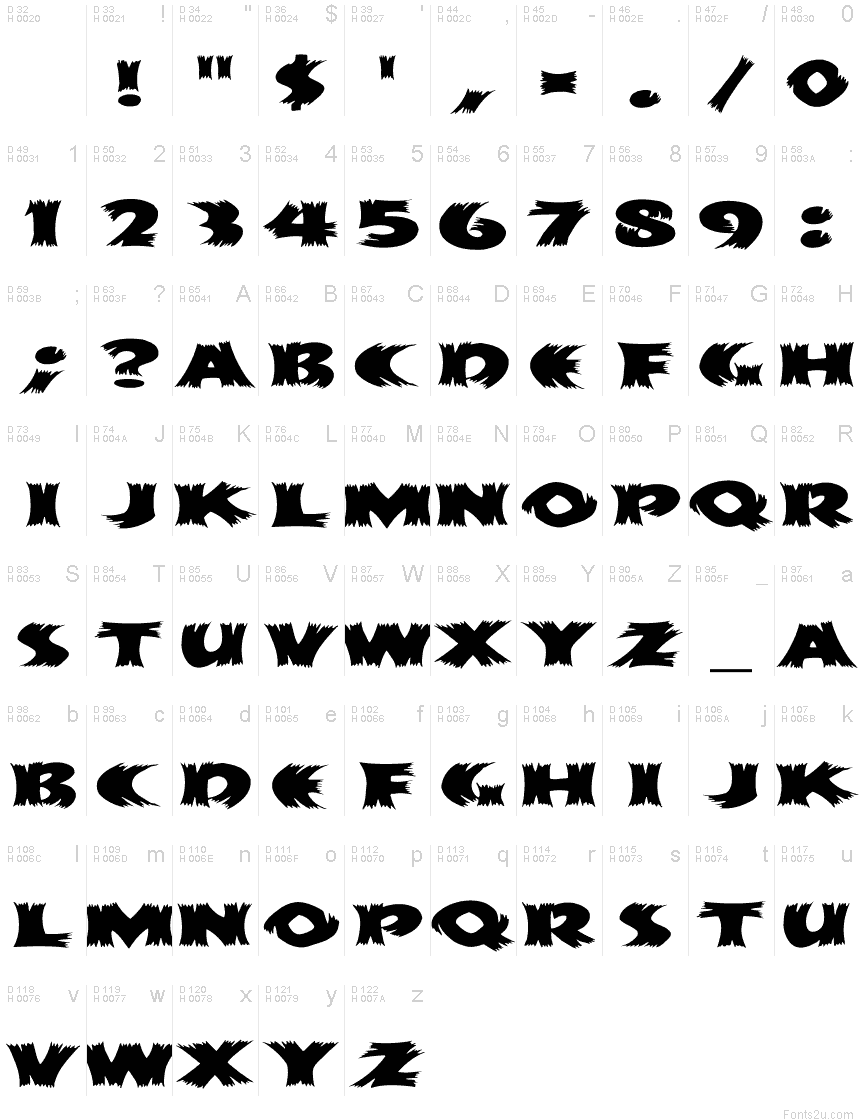
Hay Stack MF Wide by Richard William Mueller of Altsys is a free horror display font built from broad, heavy capitals with hacked, splintered edges. Each shape stays dense and forceful.
As a feral title treatment, it fits Halloween posters, metal merchandise, and monster-game graphics. The recurring spikes and torn contours can become part of the artwork, echoing claws, rough timber, or shredded paper in event branding and packaging rather than reading as neutral text.